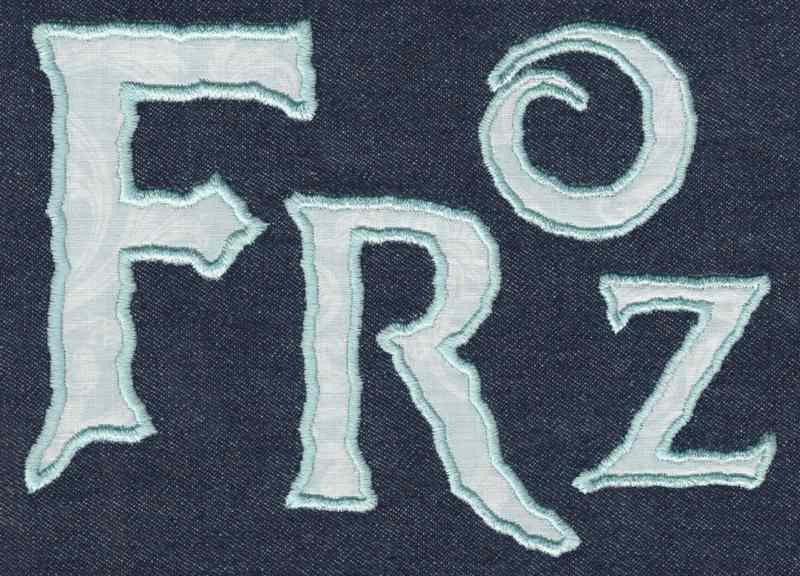
566 Frosty Applique Font
Frosty Applique Font comes in 2", 3" and 4" heights based on the capital "A". All sizes included in purchase price. Includes uppercase letters and numbers (no lowercase or punctuation marks). All characters are finished in Satin Overcast and use 3-color applique set up for easy stitch order adjustment in a variety of embroidery software programs. This font was hand drawn by Troy of Jolson's Designs and inspired by a popular animated movie. Edges are bumpy/wobbly intentionally to give the font a cracked ice look.